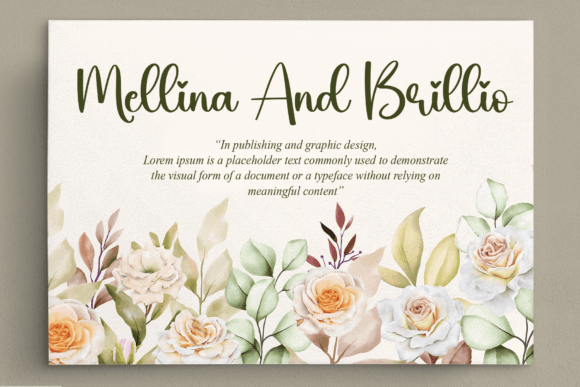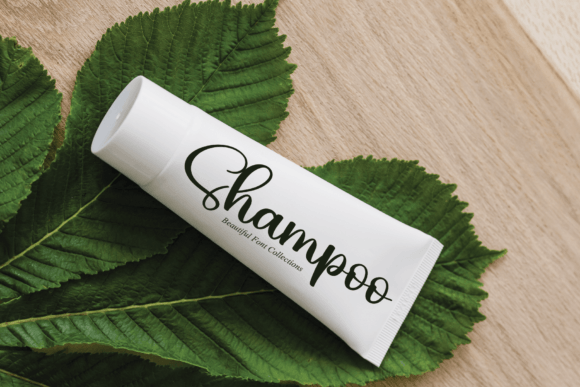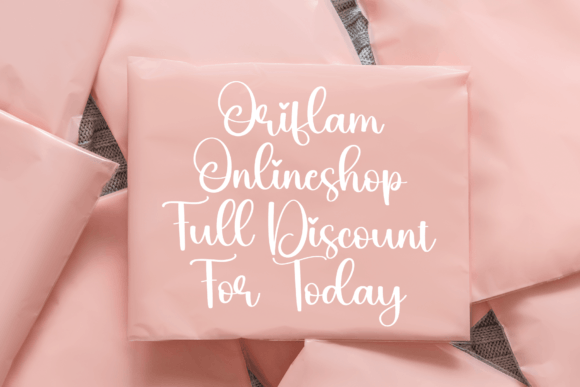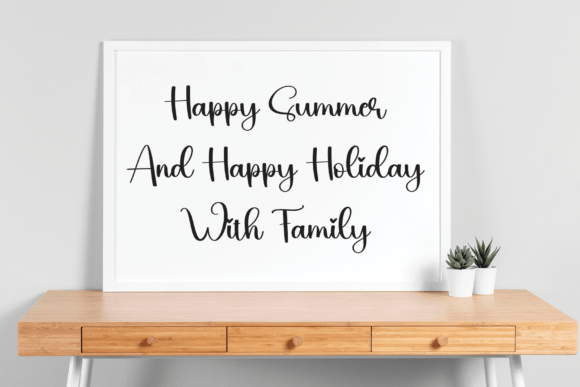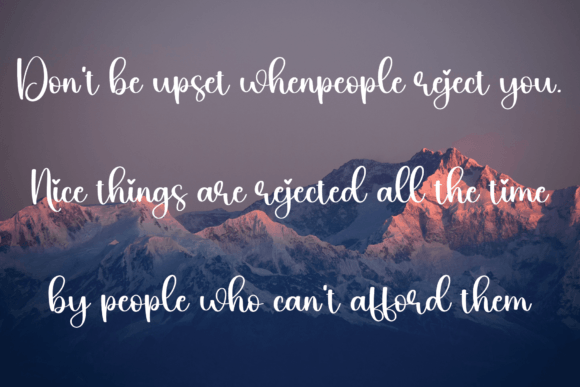
About Bride Font
Bride’s latest style letters offer a perfect blend of elegance and versatility, making them an ideal choice for a wide range of creative projects. Whether you’re working on wall displays, wedding invitations, social media post logos, advertisements, product packaging, product designs, labels, photography, watermarks, invitations, stationery, or any project that demands a handwritten touch, these letters are designed to meet your diverse needs.
Imagine creating a captivating wall display that not only draws attention but also exudes a sense of sophistication with Bride’s latest style letters. The unique design adds a touch of glamour, transforming any space into a visually stunning showcase. For wedding invitations, these letters bring a romantic and personalized feel, setting the tone for a memorable celebration and leaving a lasting impression on the recipients.
In the digital realm, Bride’s letters shine in social media post logos and advertisements. Their timeless yet contemporary design ensures that your brand or message stands out, capturing the attention of your audience. Whether you’re promoting a product or conveying a message, these letters add a touch of charm and individuality to your online presence.
When it comes to product packaging and designs, Bride’s letters elevate the visual appeal, turning ordinary labels into works of art. The sophisticated and handwritten taste they offer contributes to a cohesive and stylish presentation, making your products more memorable and visually appealing to customers.
Photography projects benefit from the romantic and elegant aesthetic of Bride’s letters, especially when used as watermarks. They seamlessly integrate into images, adding a personalized touch and enhancing the overall visual narrative. Invitations for various events, from formal gatherings to intimate affairs, are elevated by the grace and charm of these letters, ensuring a memorable and enchanting experience for the recipients.
Even in the realm of stationery, Bride’s letters bring a touch of sophistication. Crafting beautifully designed and personalized letterheads, notecards, and other stationery items becomes a breeze with the unique and elegant style these letters offer. Each piece becomes a representation of refined taste and attention to detail.
In conclusion, Bride’s latest style letters transcend being mere characters; they are a tool for creative expression and personalization. Whether you’re working on a grand project or a small intimate affair, these letters infuse a handwritten taste that adds a layer of elegance and style. With Bride’s letters, your projects are transformed into timeless and memorable works of art.